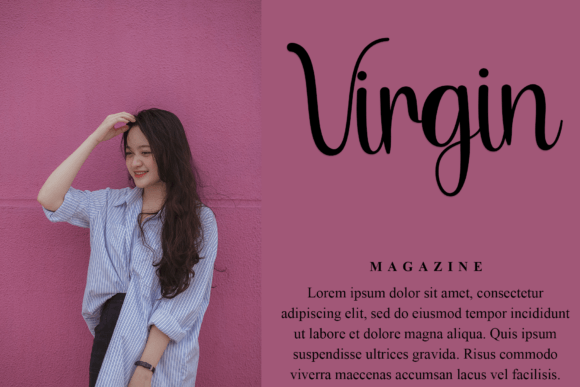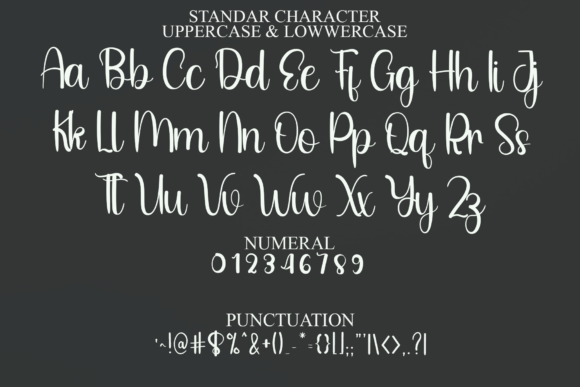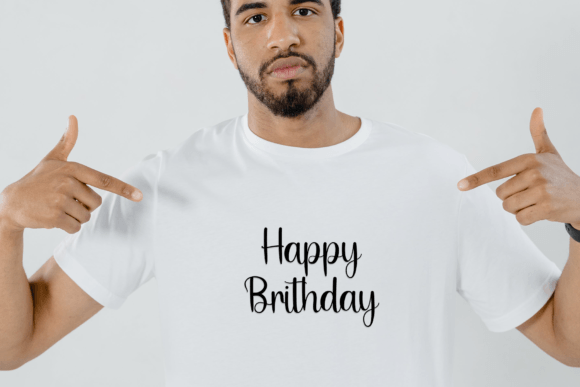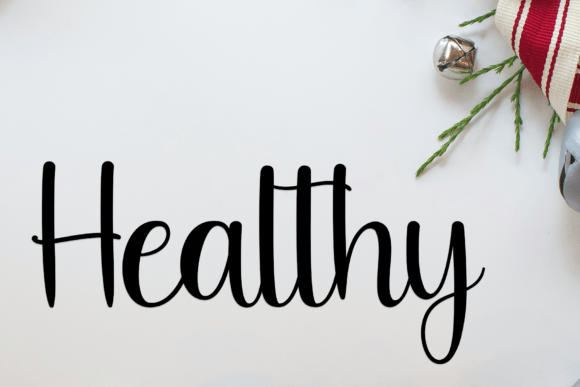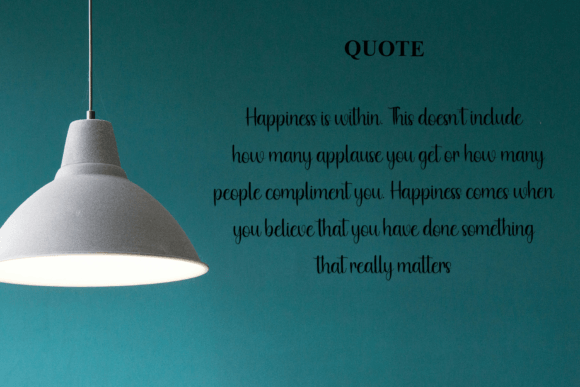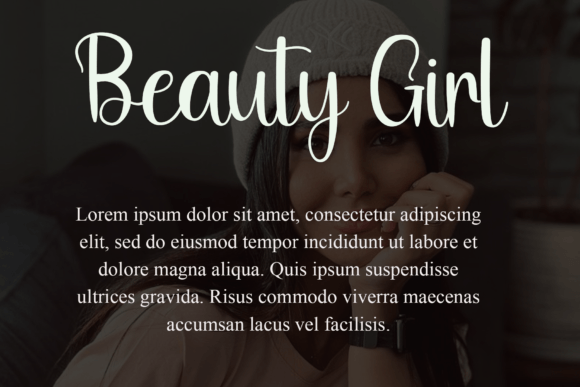
Introducing Dualistic Font: Elevate Your Designs with Elegance and Flair
In the world of typography, a font can make or break a design. It’s the perfect blend of style, elegance, and personality that can transform a simple concept into a stunning visual masterpiece. If you’re a designer, crafter, or creative enthusiast, you’re likely always on the lookout for that perfect font to bring your ideas to life. Look no further than Dualistic Font, a delicate, elegant, and flowing handwritten font that’s sure to captivate your audience.
The Beauty of Dualistic Font
Dualistic Font is a true gem in the world of typography. Its delicate and elegant design makes it perfect for a wide range of creative projects, from wedding invitations and branding materials to digital content and craft projects. The font’s flowing lines and beautiful characters are meticulously crafted to create a sense of harmony and balance, making it an excellent choice for designers seeking a sophisticated and refined look.
One of the standout features of Dualistic Font is its versatility. Its well-balanced characters and classic design make it an excellent match for a wide pool of designs, allowing you to pair it with various styles and themes without worrying about visual clashes. Whether you’re going for a vintage, rustic, or modern aesthetic, Dualistic Font is sure to complement your design with elegance and flair.
Dualistic Font is PUA (Private Use Area) coded, which means you can easily access all the amazing glyphs and ligatures without any hassle. This feature is a game-changer for designers, as it allows you to unlock the full potential of the font and add an extra layer of creativity to your projects. With PUA coding, you can effortlessly insert special characters, swashes, and other unique elements to give your designs a personal touch.
So, what can you create with Dualistic Font? The possibilities are endless! Here are a few ideas to get you started:
- Wedding Invitations: Create stunning wedding invitations, save-the-date cards, and ceremony programs that exude elegance and sophistication.
- Branding Materials: Use Dualistic Font to craft unique logos, business cards, and letterheads that reflect your brand’s personality and style.
- Digital Content: Add a touch of elegance to your blog posts, social media graphics, and email newsletters with Dualistic Font.
- Craft Projects: Incorporate Dualistic Font into your craft projects, such as handmade cards, scrapbooking, and DIY decor.
Why Choose Dualistic Font?
With so many fonts available, why choose Dualistic Font? Here are a few compelling reasons:
- Unique and Elegant Design: Dualistic Font boasts a distinctive and refined design that will set your projects apart from the rest.
- Versatility: The font’s classic design makes it suitable for a wide range of creative projects and themes.
- PUA Coded: Easy access to glyphs and ligatures means you can unlock the font’s full creative potential.
- High-Quality: Dualistic Font is crafted with attention to detail, ensuring a high-quality design that will impress your audience.
In conclusion, Dualistic Font is an exceptional addition to any designer’s toolkit. Its delicate, elegant, and flowing design makes it perfect for a wide range of creative projects. With its PUA coding, you can easily access a wealth of glyphs and ligatures to add an extra layer of creativity to your designs. Whether you’re a seasoned designer or a crafty enthusiast, Dualistic Font is sure to elevate your projects and bring your ideas to life. So why wait? Discover the beauty of Dualistic Font today and experience the transformative power of typography!